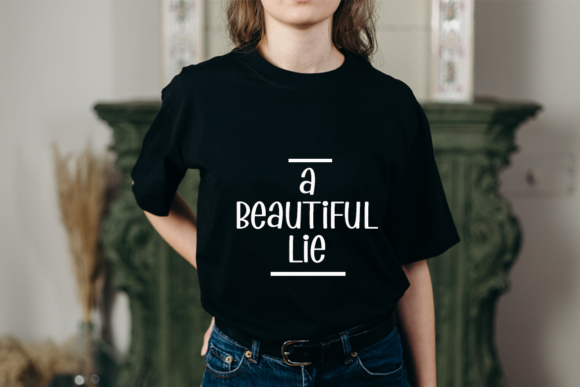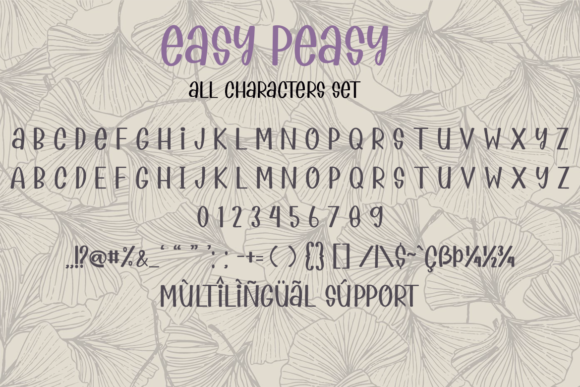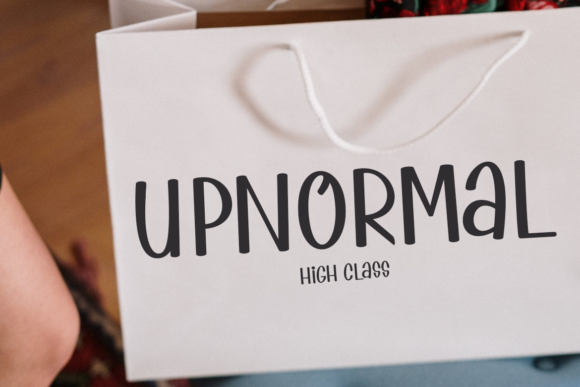
Introduction to Easy Peasy Font
Have you ever stared at a blank canvas, trying to bring your creative vision to life? The blank page can be intimidating, but sometimes all it takes is the right tool to spark inspiration. For designers and crafty enthusiasts alike, finding the perfect font can be the game-changer that takes a project from meh to mesmerizing.
Enter the Easy Peasy Font, a delightful display font that’s as fun to work with as it is to look at. This charming font is the perfect fit for logos, branding, posters, and any other creative project that requires a dash of whimsy and personality.
Key Features of Easy Peasy Font
- High-quality design: Easy Peasy Font is designed with precision and care, ensuring a professional and polished look for any creative project.
- Transparent background: This font features a transparent background, allowing for seamless integration with any image or design element.
- High-resolution design: With a resolution of 300 DPI, this font is perfect for large-scale printing and high-quality digital displays.
- Unique characteristics: The Easy Peasy Font features a unique blend of modern and classic elements, making it an ideal choice for designers looking for something fresh and exciting.
- Perfect for design resources: This font is a valuable addition to any design resource library, offering endless possibilities for creative projects and designs.
Honest Review: Easy Peasy Font
As a designer, I’m always on the lookout for high-quality design resources to elevate my creative projects. Recently, I had the chance to try out the Easy Peasy Font, and I’m excited to share my honest review.
- The font is highly customizable, allowing for seamless integration into various design projects.
- The transparent background is a nice touch, making it easy to layer over other design elements.
- The font’s high-quality design ensures it looks crisp and clean, even at larger font sizes.
- The font’s limited character set may not be suitable for extensive text-based projects.
- The font’s style, while unique, may not appeal to all designers or design projects.
Overall, I’m impressed with the Easy Peasy Font’s potential as a design resource. While it may have some limitations, its high-quality design and customizable options make it a valuable addition to any designer’s toolkit. I’d definitely recommend it for smaller creative projects or as a supplementary font for more extensive designs.
The Easy Peasy Font is a high-quality design resource that can elevate your creative project to the next level. With a transparent background, this font is perfect for designers looking for a versatile and stylish addition to their work.
Tips for Getting the Most Out of Easy Peasy Font
To get the most out of the Easy Peasy Font, try combining it with other design elements, such as graphics and textures, to create a unique and eye-catching design. Experiment with different font sizes and colors to find the perfect balance for your project.
The Easy Peasy Font is perfect for a variety of design projects, including:
- Blogs and websites
- Business cards and brochures
- Marketing materials and presentations
Alternatives to Easy Peasy Font